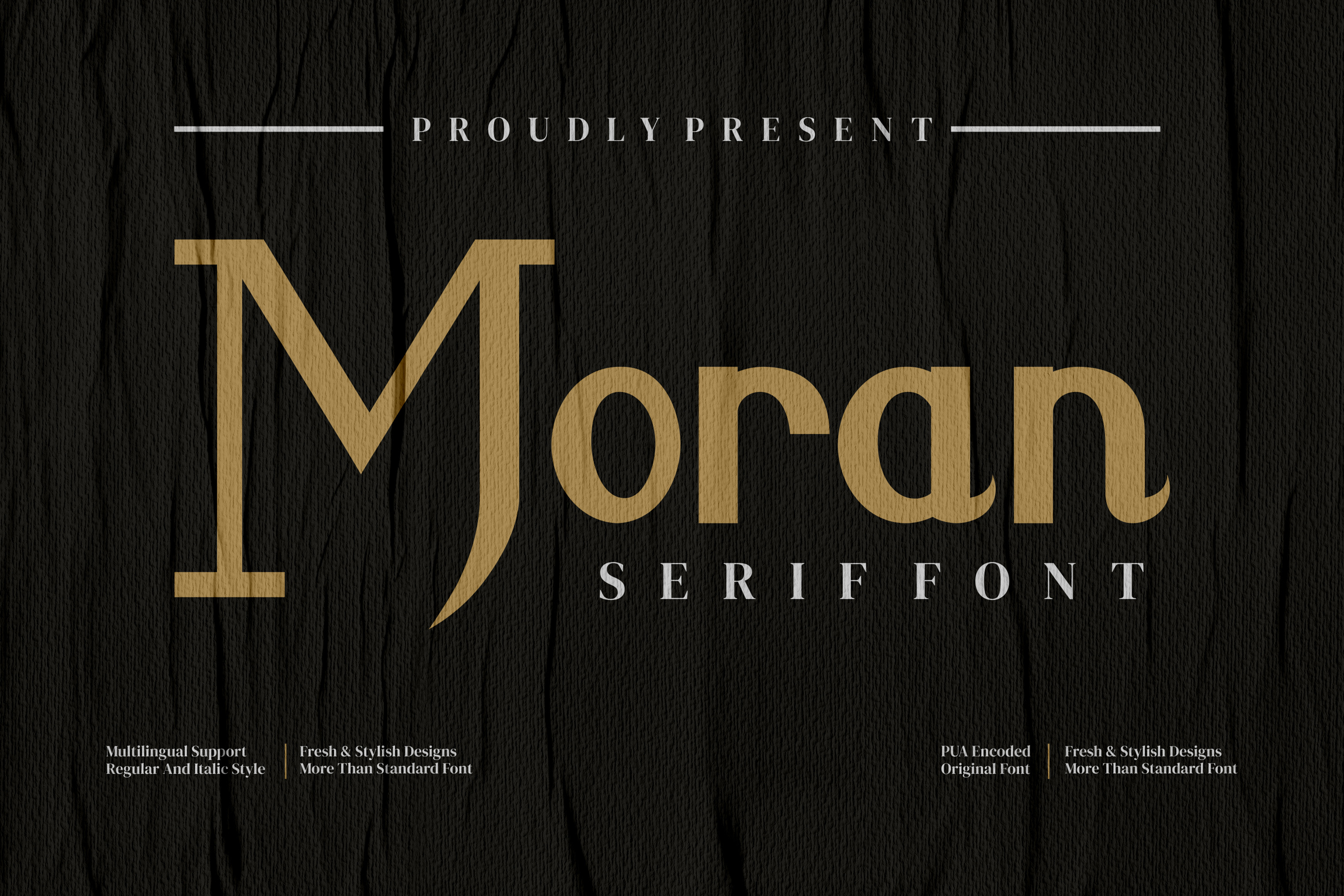
Moran - Modern serif font
Moran - Modern serif font, suitable for any projects such as: logos, branding projects, homeware designs, product packaging, mugs, quotes, posters, shopping bags, t-shirts, book covers, name card, invitation cards, greeting cards, label, photography, watermark, special events, and all your other luxury projects that need a premium signature taste. if you use this font, it certainly makes a very interesting and professional impression for you